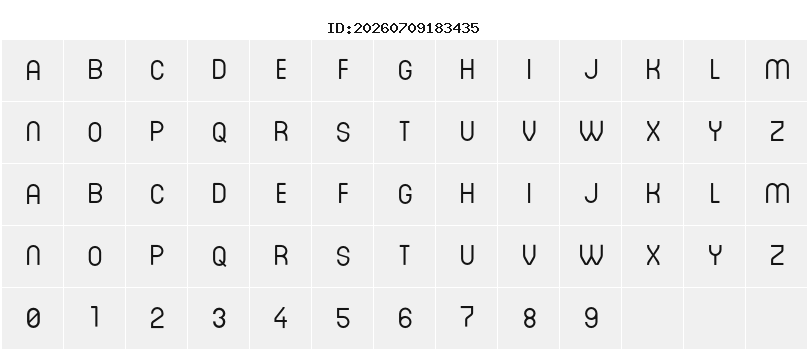
• Font Name: DINASTI
• Designer: Michael Alexander
• Manufacturer: SANROK Studio
DINASTI.otf is a modern, elegant sans-serif font designed for ultimate readability and visual harmony. Perfect for branding, headlines, web design, and print materials.